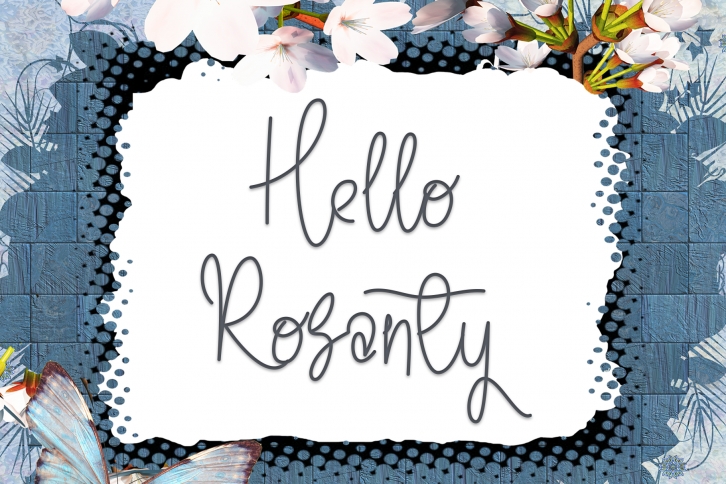
Hello Rosanty is a lovely and delicate script font that exudes elegance and class. This font was particularly crafted for those who need a beautiful and refreshing look to their designs.Â